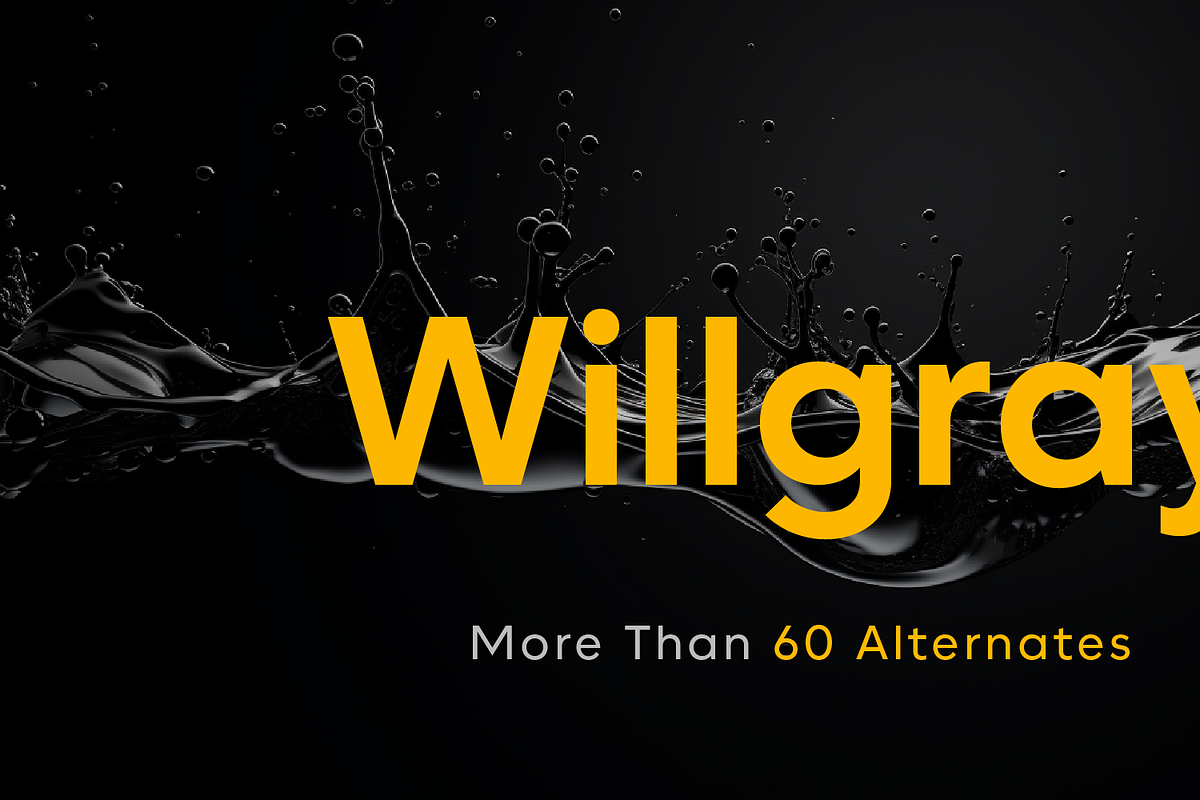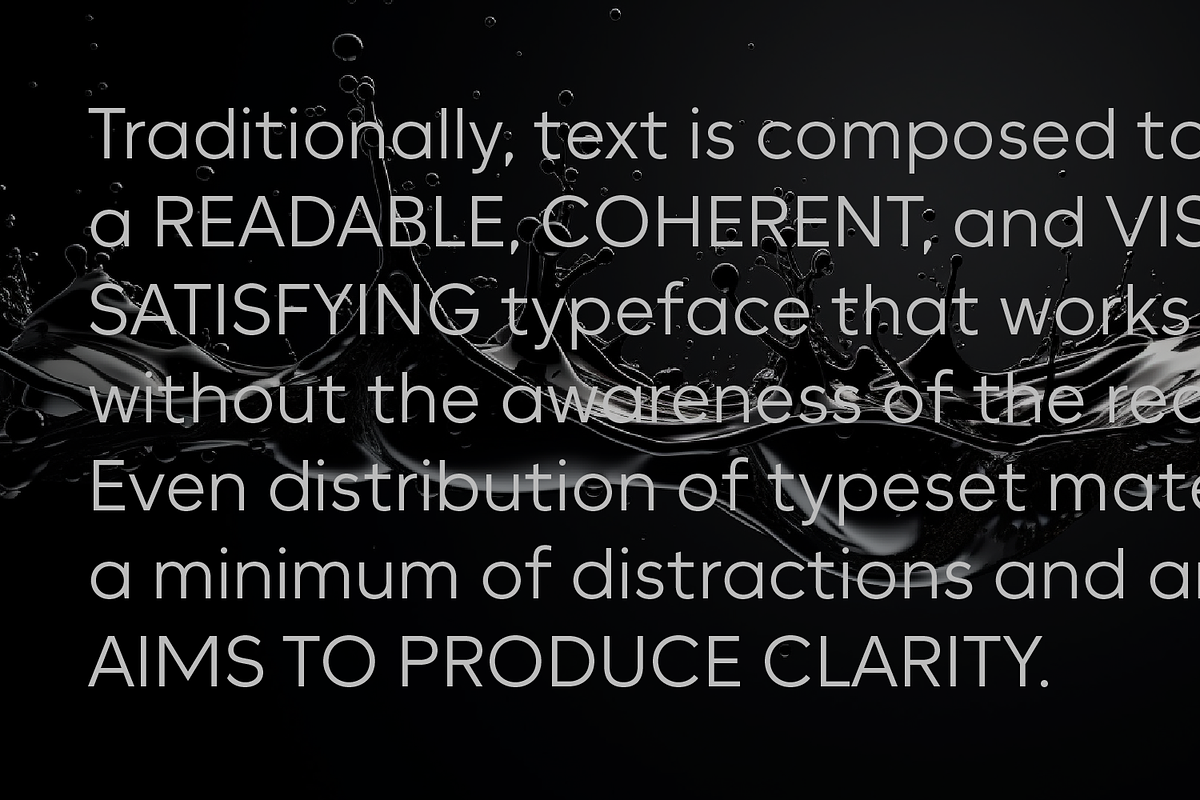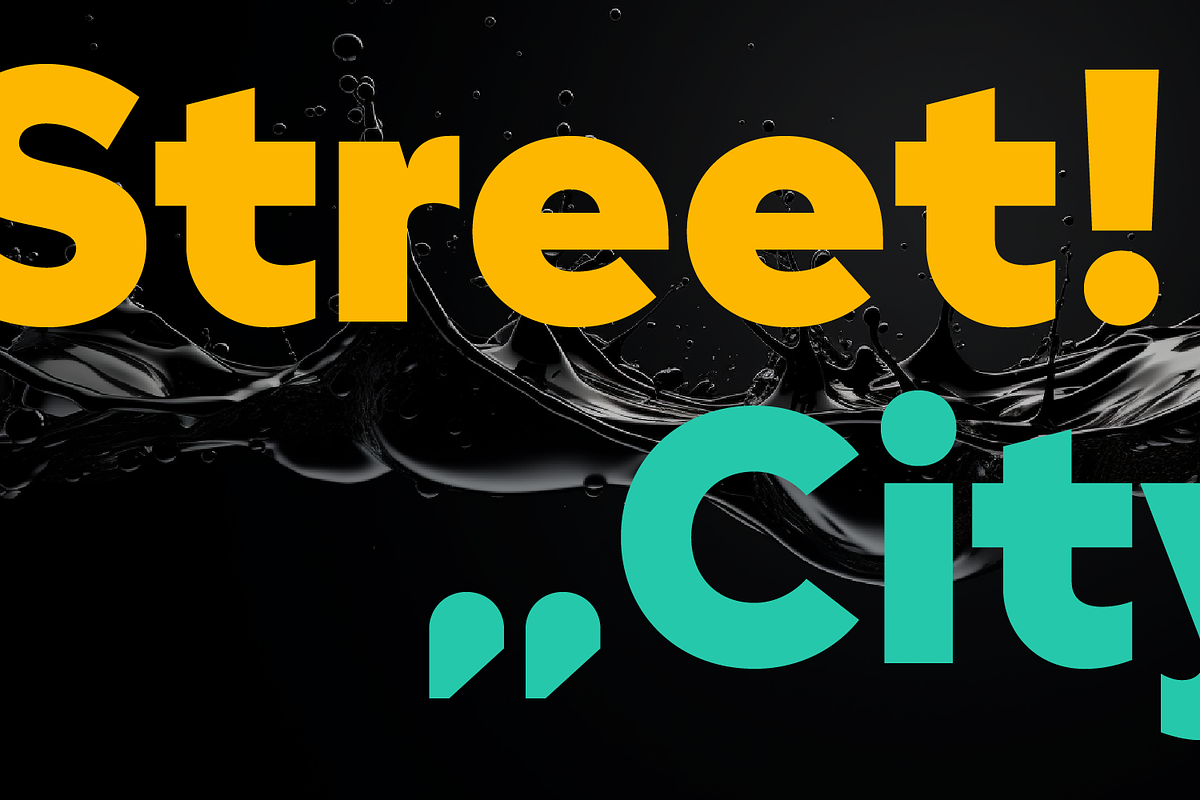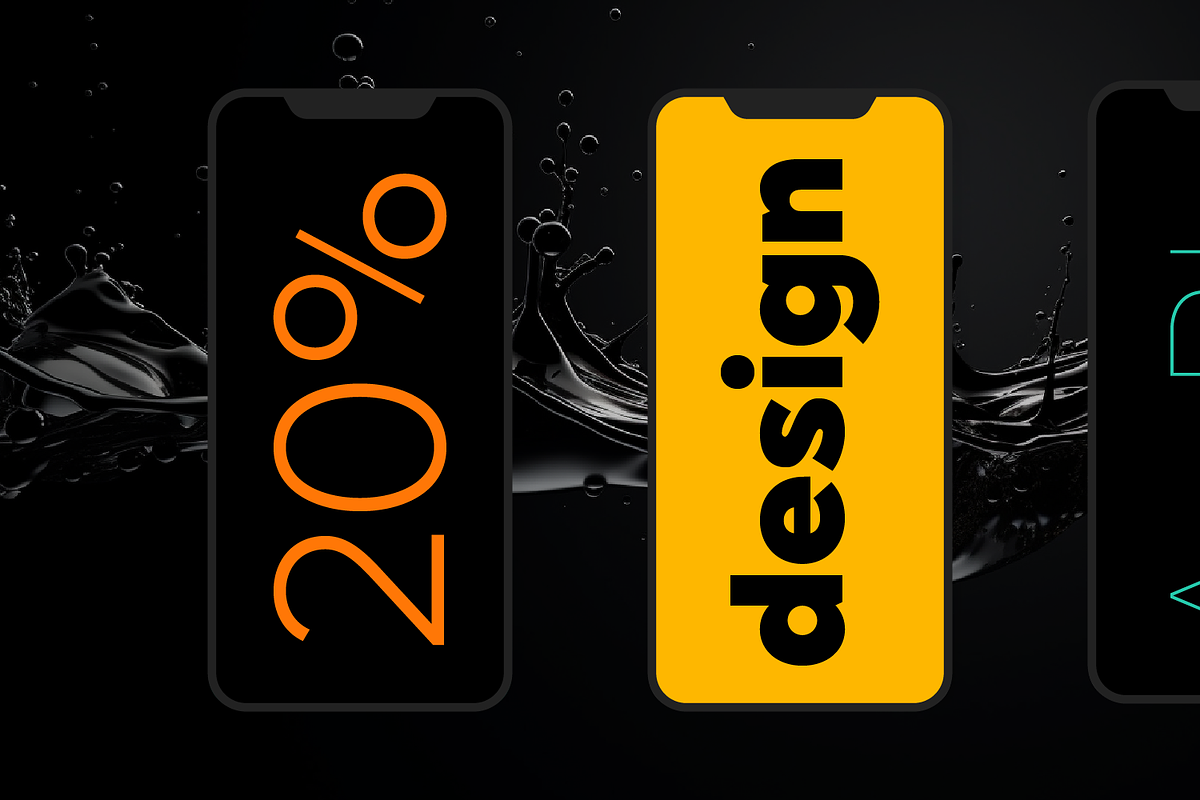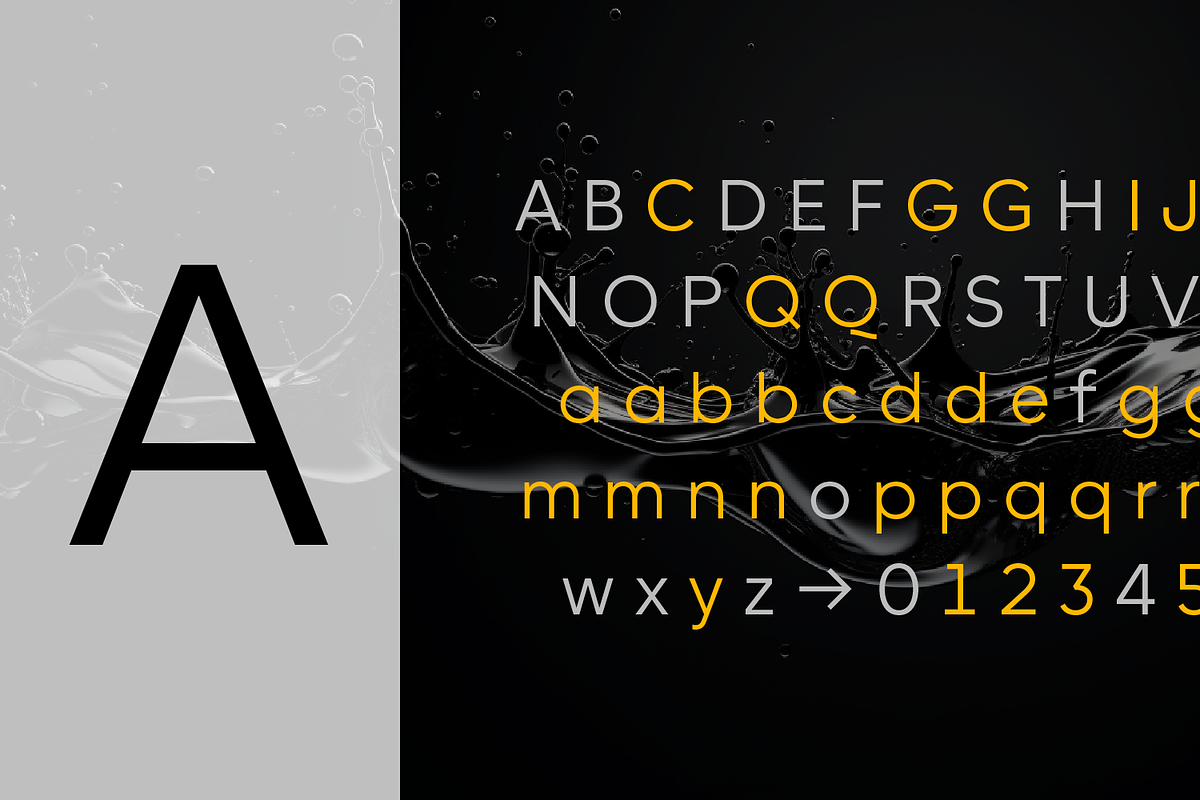
Willgray A
The Willgray family offers three options: A, B, and C, each equipped with 20 fonts. This versatile family is ideal for a wide range of applications, including signage, packaging, brand identity, software, editorial design, and web and screen design.